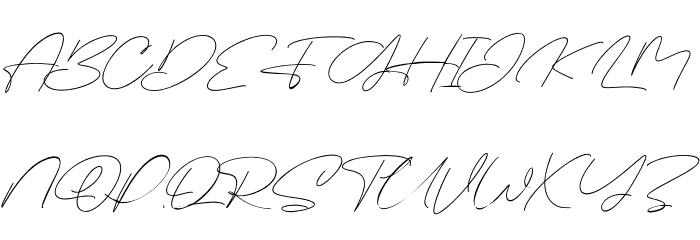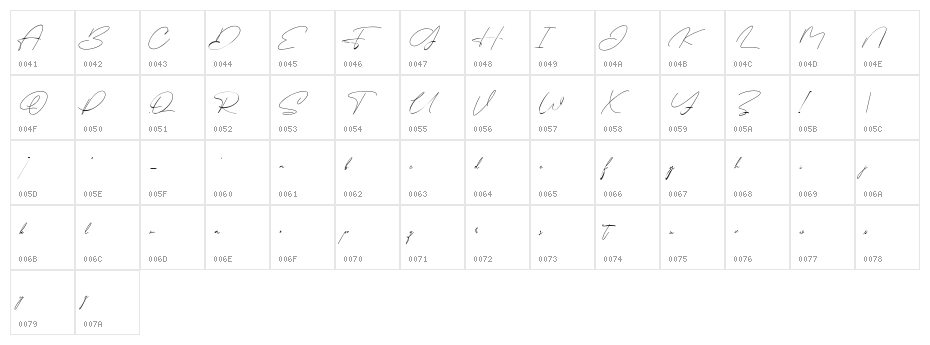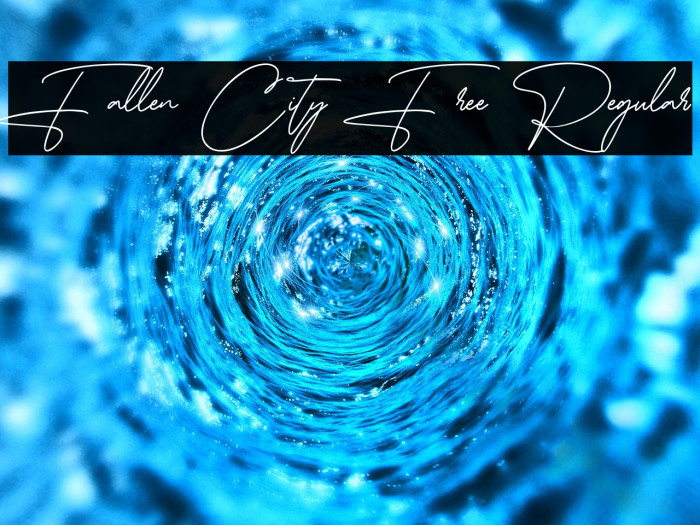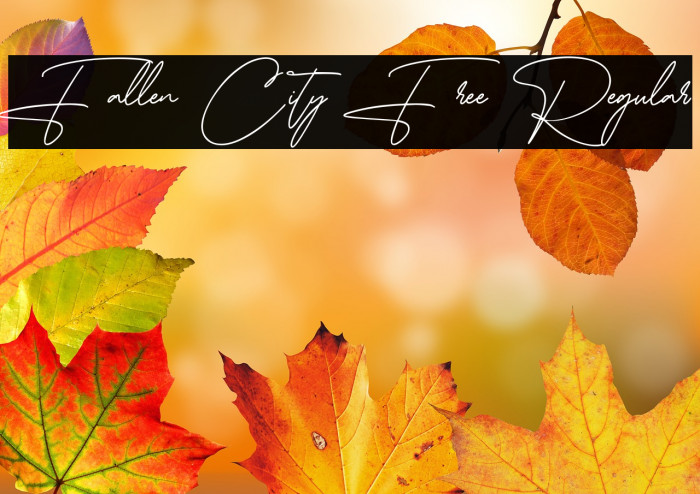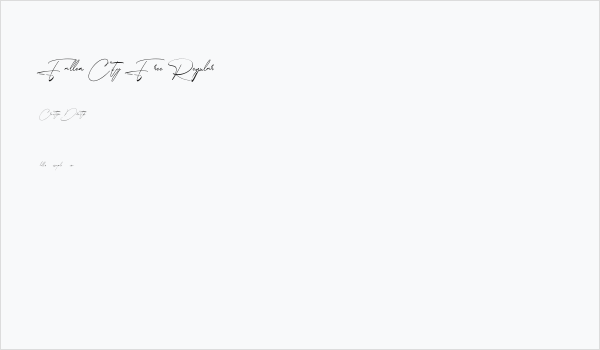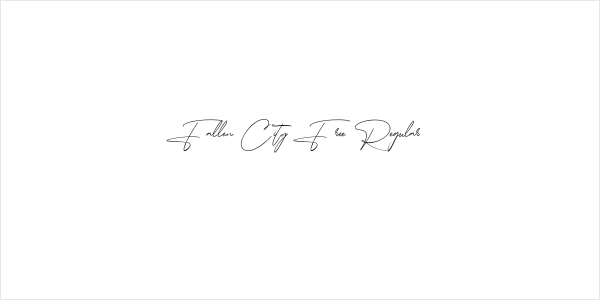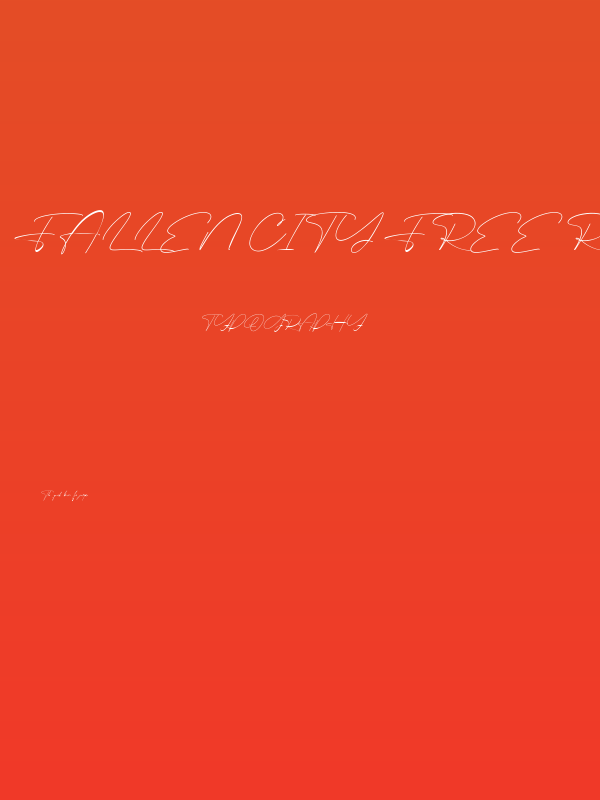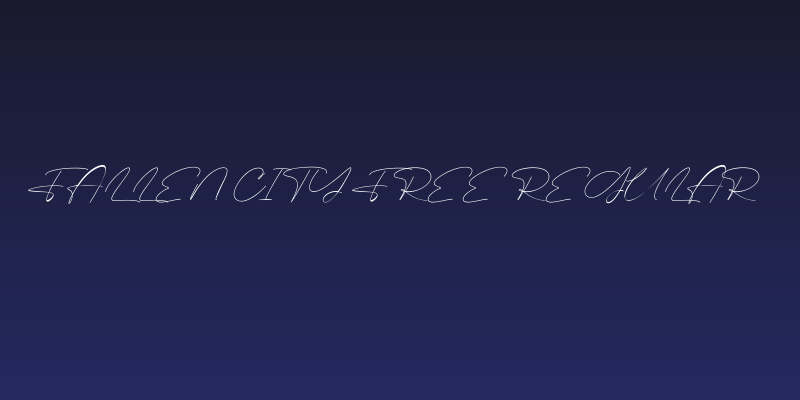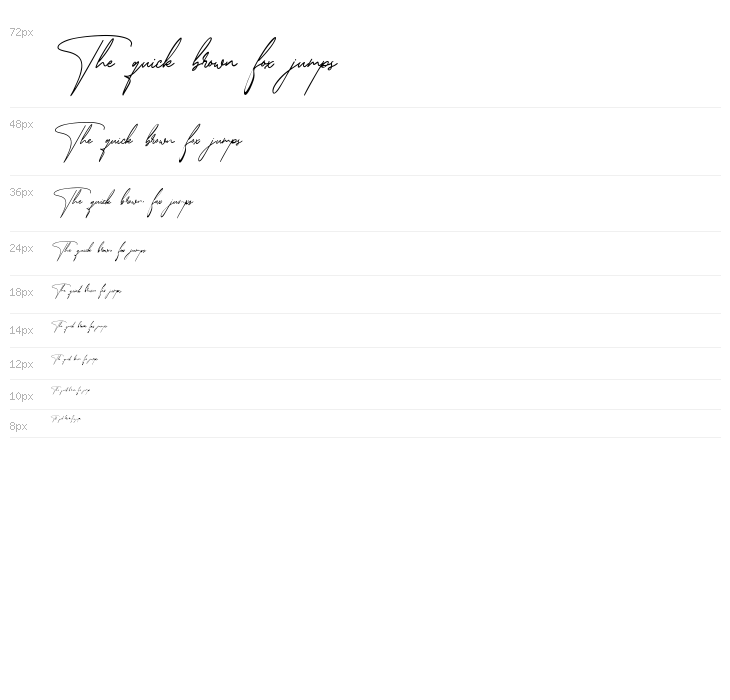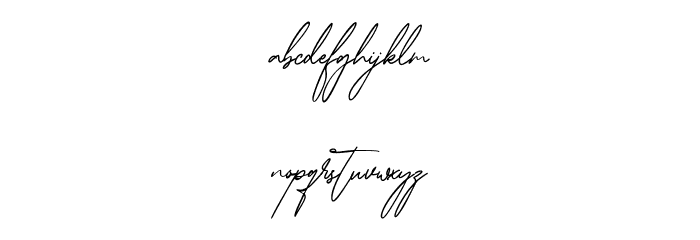
Fallen City Free Regular Font
Fallen City Free Regular Description
This font features an elegant and flowing script style, characterized by its delicate, thin strokes and cursive letterforms. The uppercase letters are elongated and gracefully connected, creating a sense of fluidity and movement. The lowercase letters maintain a consistent style, with some letters featuring loops and flourishes that add to the overall decorative appearance. The font exudes a sense of sophistication and is reminiscent of handwritten calligraphy, making it suitable for projects that require a personal and artistic touch. Its overall appearance is both modern and classic, with a timeless quality that can enhance various design projects.
| Overall Style | Elegant, Classic |
| Use Case | Logos, Invitations, Decorative text |
| Proposed Projects | Ideal for wedding invitations, greeting cards, branding, and logo design. |